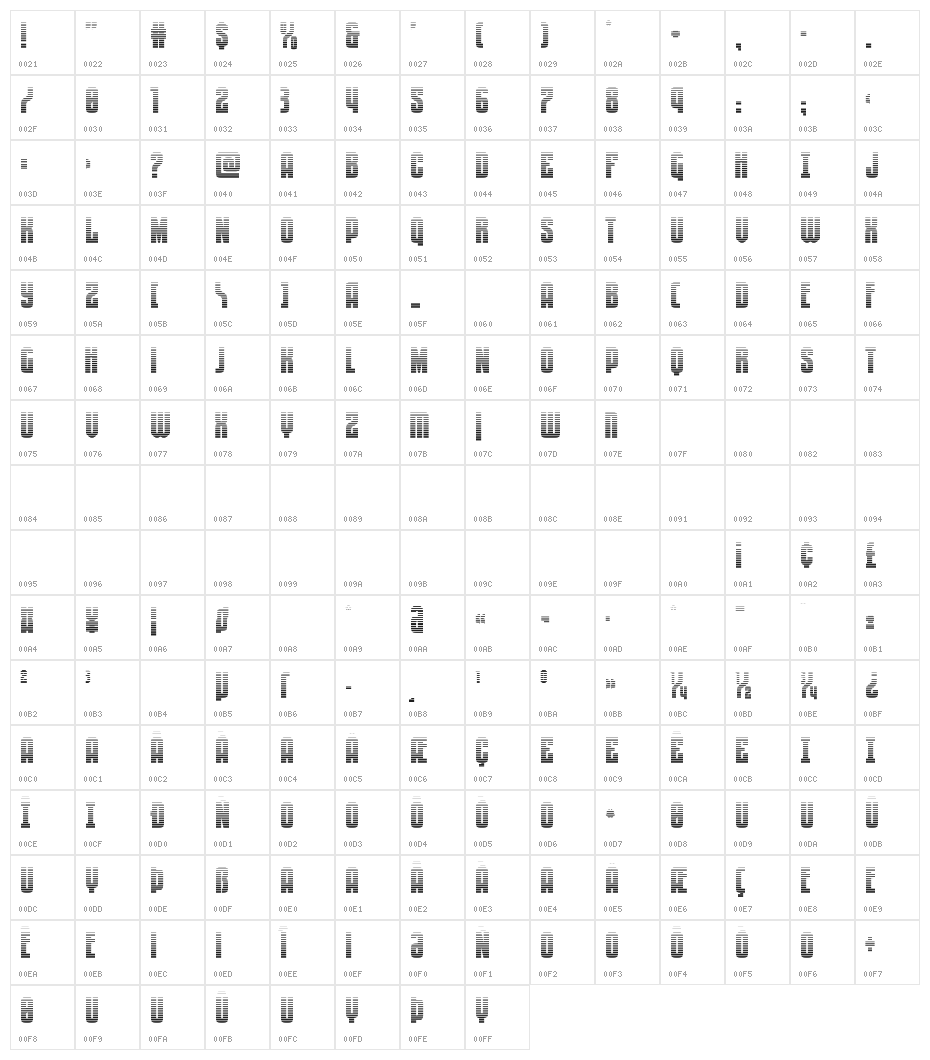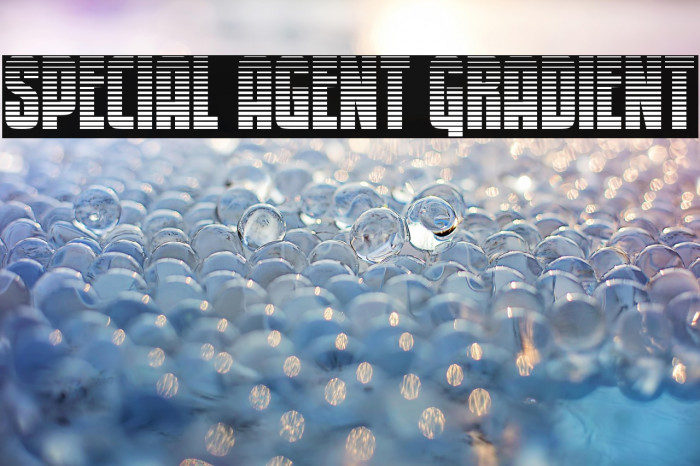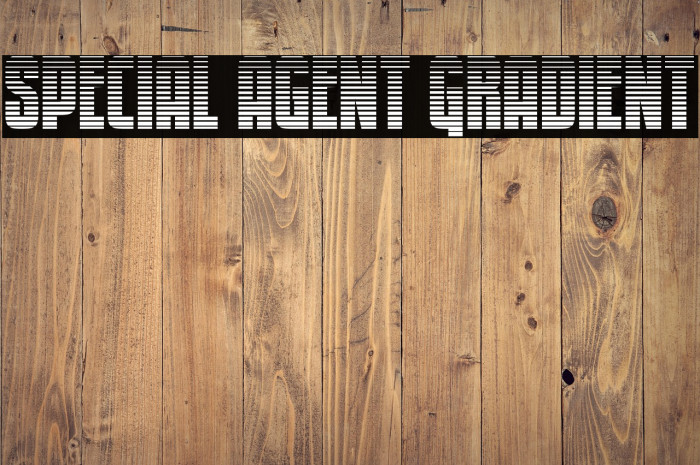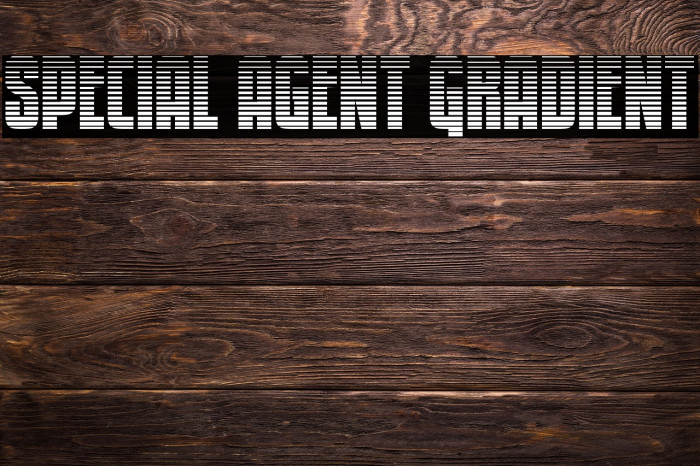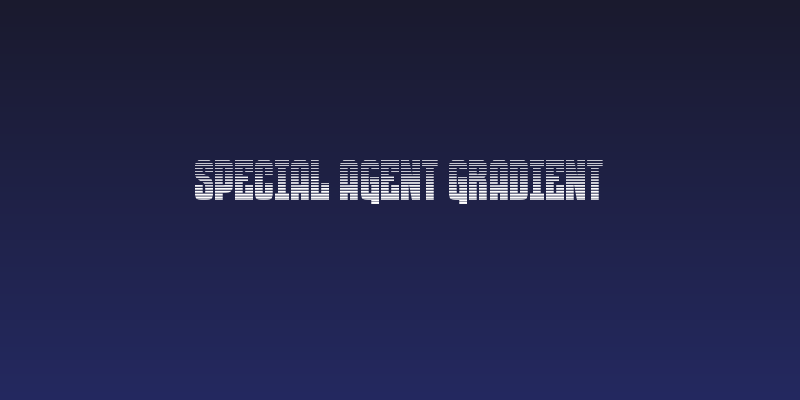
Special Agent Gradient Font
Special Agent Gradient Description
This font features a unique design with horizontal lines creating a gradient effect across each character. The uppercase and lowercase letters, as well as numbers and special characters, are constructed with a series of parallel lines that vary in thickness, giving a dynamic and modern appearance. The style is bold and eye-catching, making it suitable for impactful visual statements. The characters are evenly spaced, ensuring readability despite the intricate design. This font's distinctive look is ideal for projects that require a futuristic or tech-inspired aesthetic.
| Proposed Projects | Ideal for futuristic branding, tech-themed posters, video game titles, and modern advertising campaigns. |